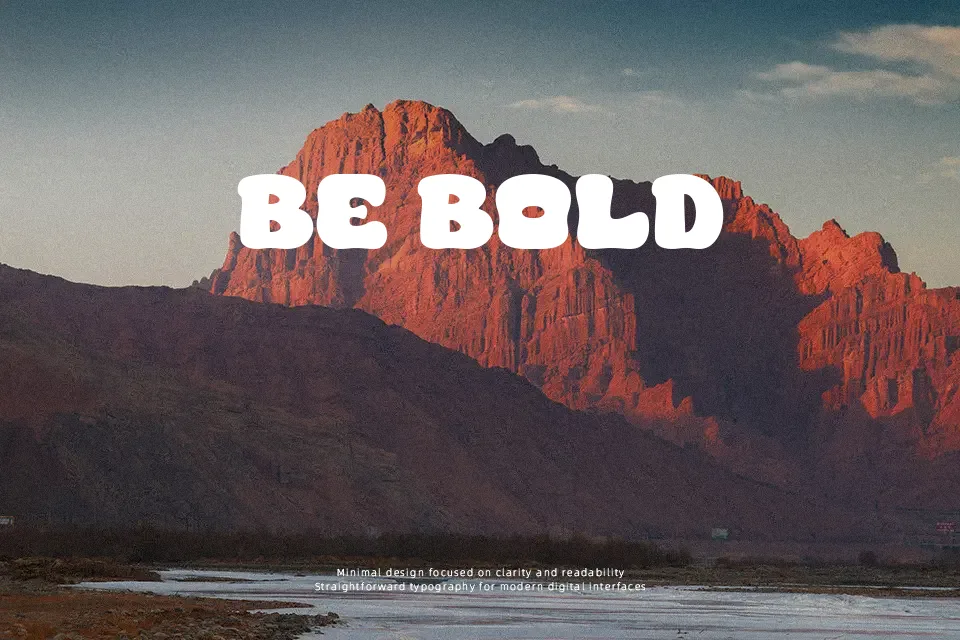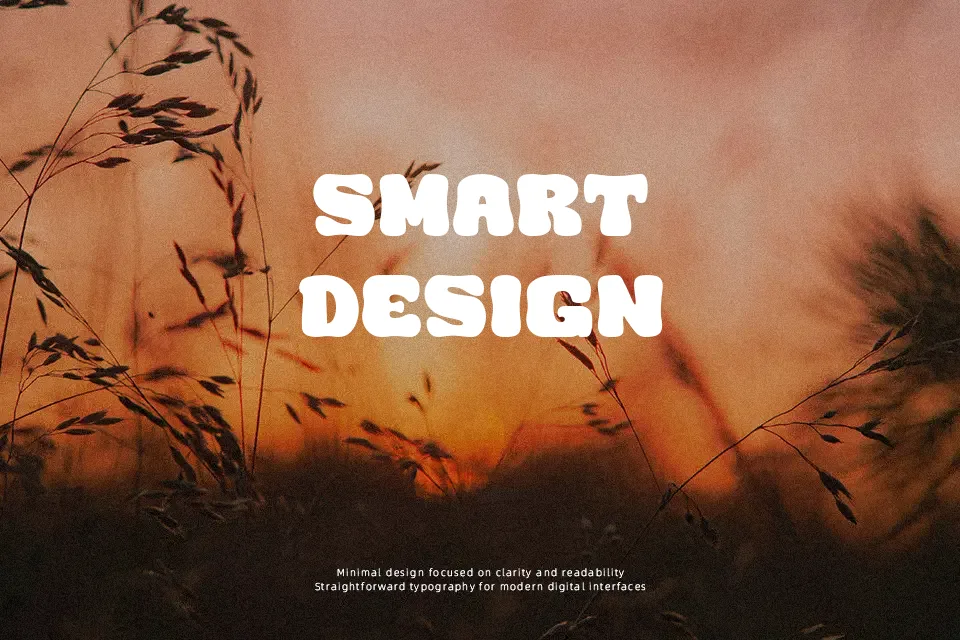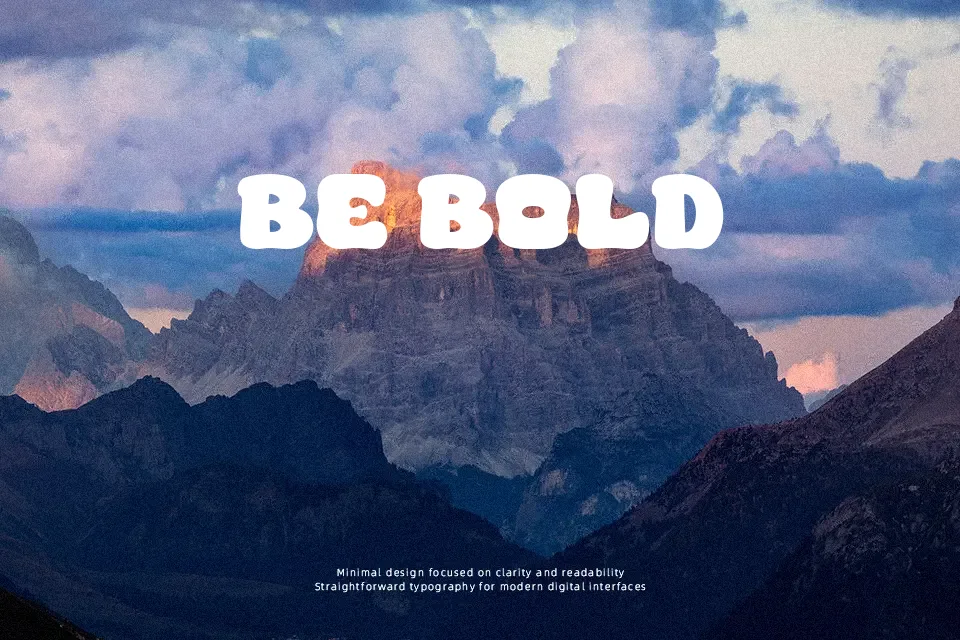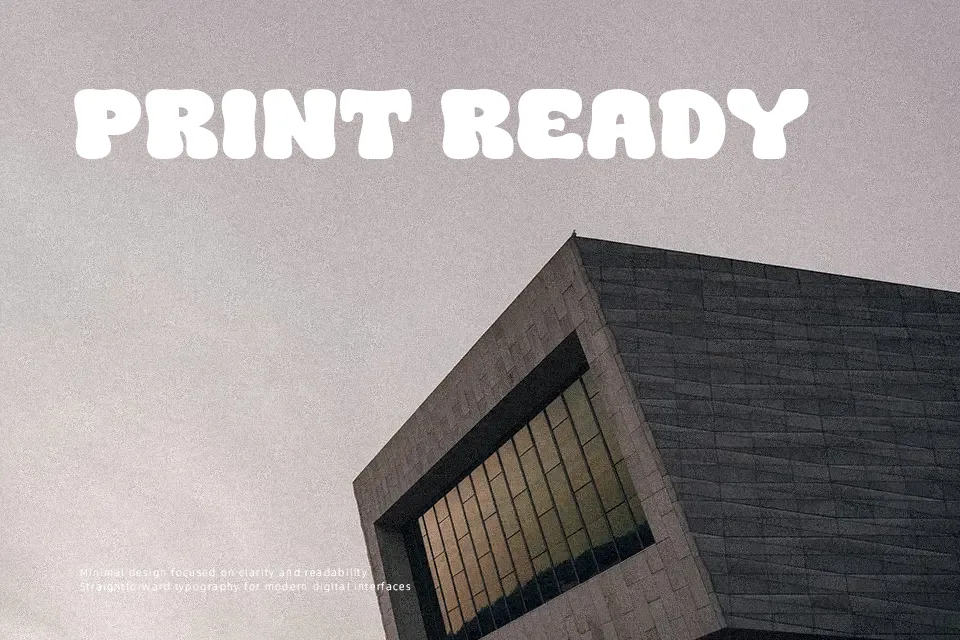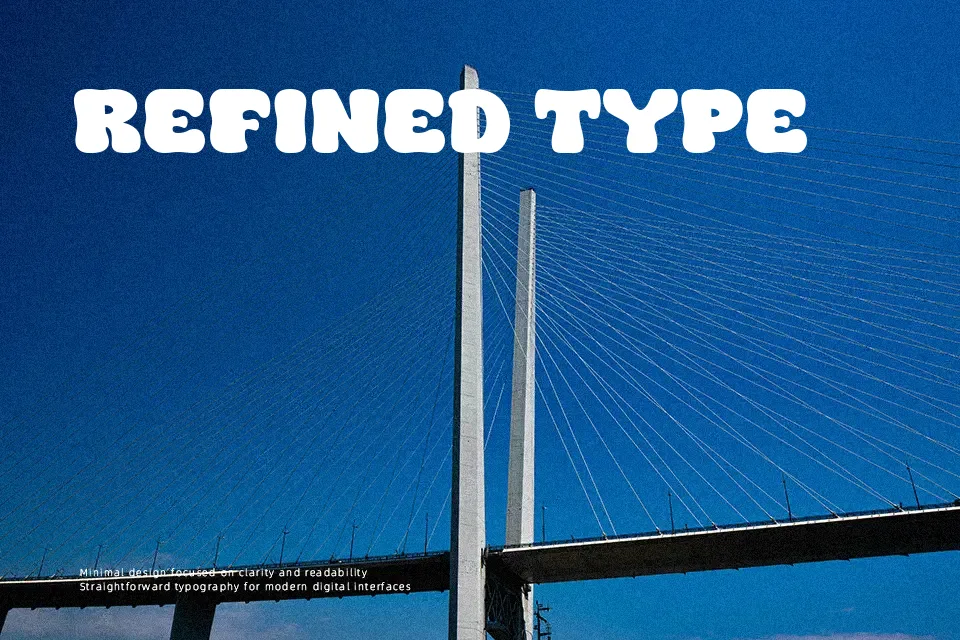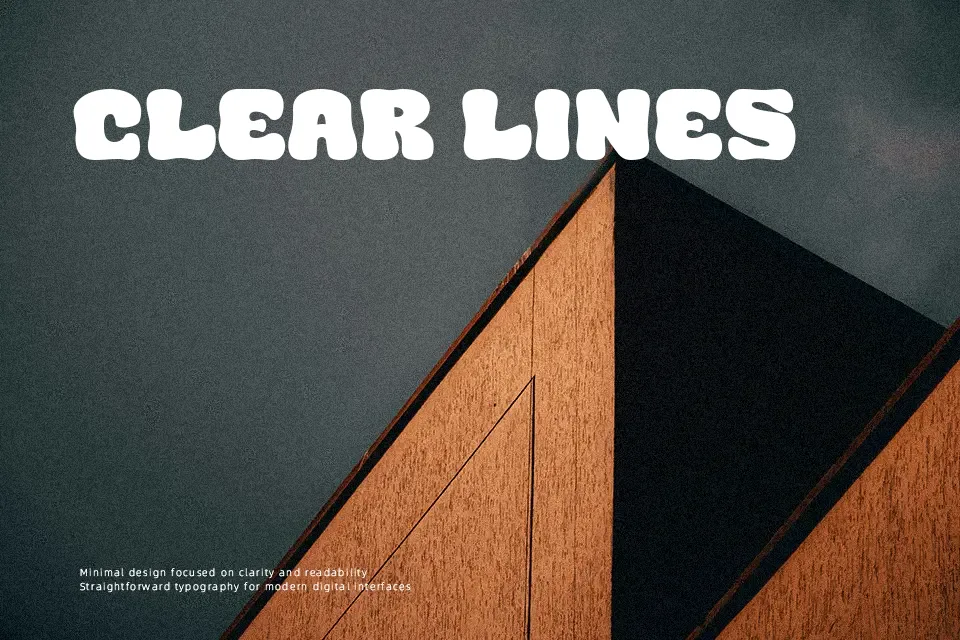
Super Ramen Font
Super Ramen Font introduces a vibrant cartoon aesthetic built around ultra-heavy weights, exaggerated curves, and softly rounded terminals. Each character exhibits minimal stroke contrast, creating a dense, uniform silhouette that commands immediate attention in prominent layouts. Proportions remain wide and stable, while the tight letter spacing reinforces a cohesive, sticker-like appearance across short phrases. The letterforms maintain crisp distinction in large headlines, party flyers, and whimsical packaging concepts. However, the sheer density of the design reduces legibility when set below headline scales. Extended body text quickly becomes cluttered, making the typeface far better suited for brief, energetic display lines.
Best For: restaurant menu headers, snack food packaging, cartoon poster titles, merchandise graphics
Not Ideal For: continuous paragraph reading, legal documentation, mobile interface copy, small caption text